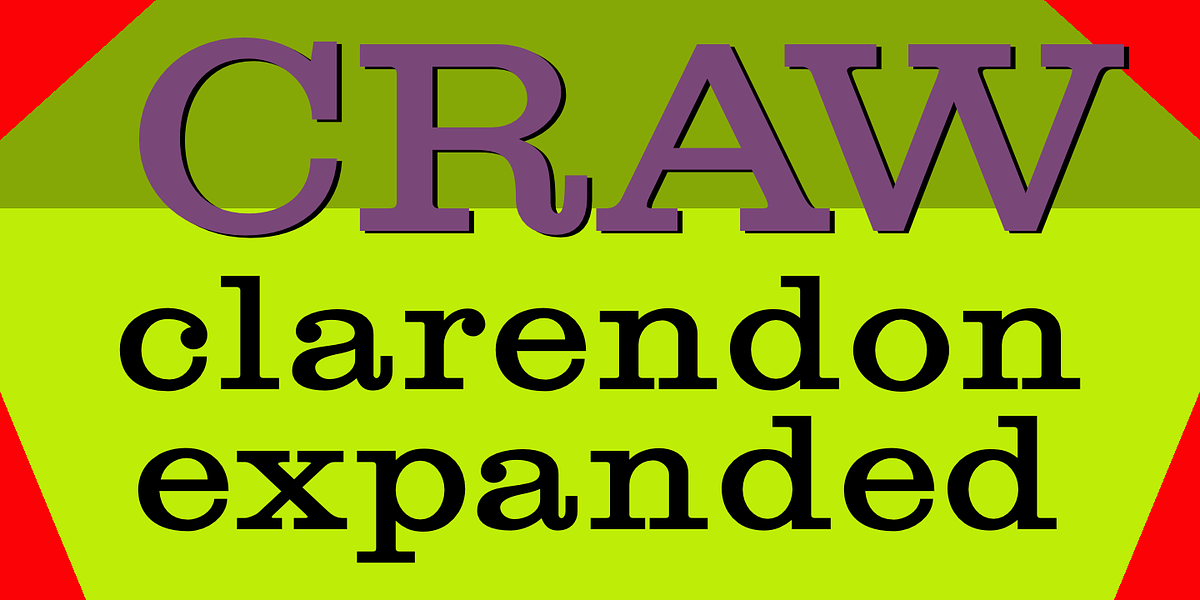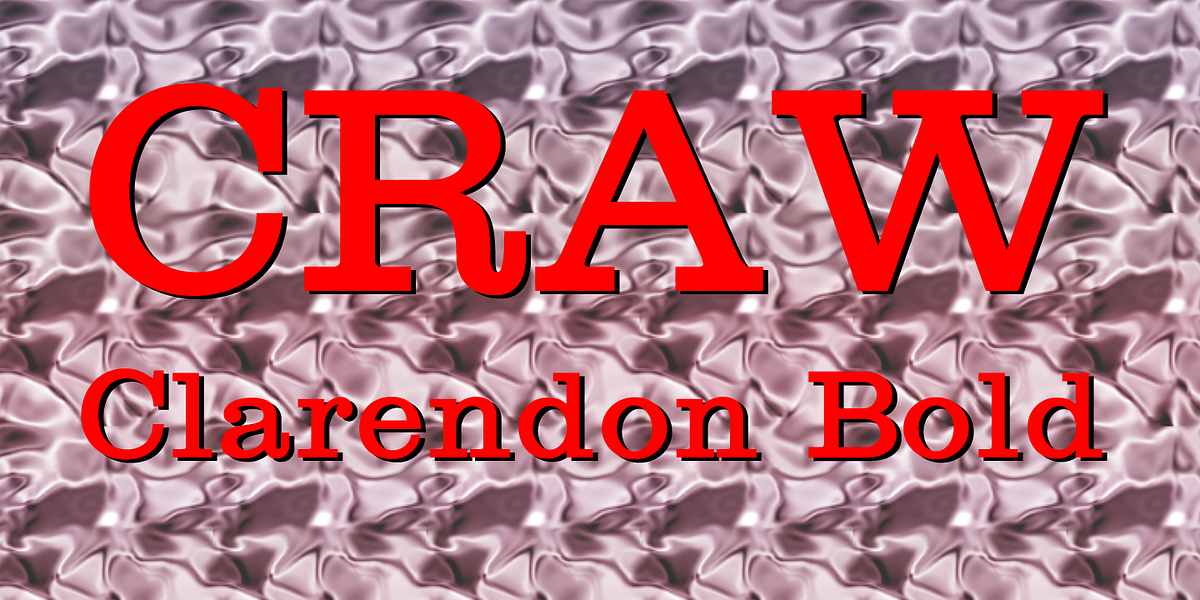
Craw Clarendon
This Clarendon font family is a grotesque slab serif typeface with ball terminals. It's characterized by its boldness and geometric shapes, making it suitable for headlines and branding applications.